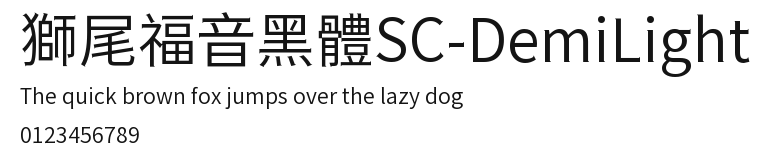
• Font Name: 獅尾福音黑體SC-DemiLight
• Font Style: DemiLight
• Full Font Name: 獅尾福音黑體SC-DemiLight
About 獅尾福音黑體SC-DemiLight.ttf
獅尾福音黑體SC-DemiLight.ttf is a modern, elegant sans-serif font designed for ultimate readability and visual harmony. Perfect for branding, headlines, web design, and print materials.